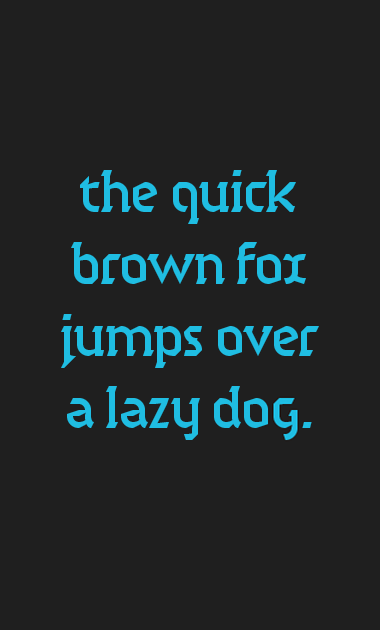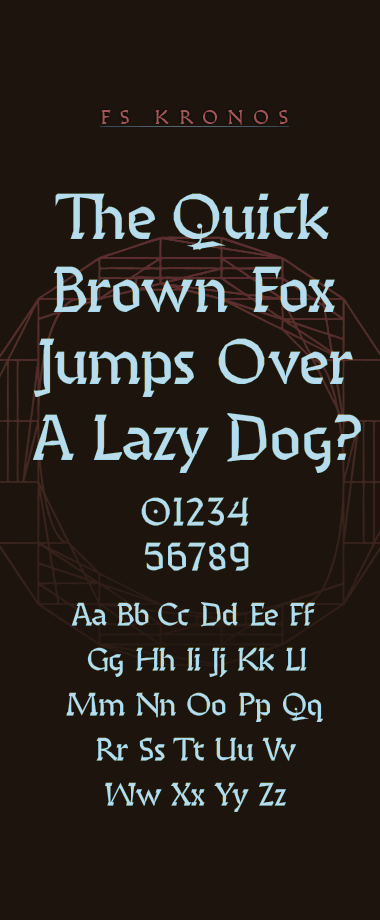
The ultra-low resolution of this grid may be difficult to grasp without cloning. Fontstruct’s logo has a nominal x-height of 3 bricks, by comparison.
The level of detail, control, and finesse possible in a given fonstruction depended mostly on resolution prior to the recent advent of stackable composites. Did you want it better? Make it bigger!
Brute force, now meet Elegance.
Instead of building individual glyphs hundreds of bricks tall, stackable composites allow us to design rich modular schemata hundreds of bricks deep. Using curved bricks at their largest scale, linear and curvilinear elements dynamically harmonize and oppose. As well, screen fonts can be effectively hinted (aside from notable lack of kerning controls) without sacrificing the integrity of joins and intersections. And the trapping possibilities, Oh the sweet sweet trapping possibilities...
At first, I first wanted to respond with a lament about how convincing capitals are just not possible within fontstruct at this scale. Ever the big dreamer and innovator, even I did not consider it likely. Yet, aside from a conspicuous absence of overshoots, the flexibility of fontstruct proved greater still.
The trapping scheme had to be worked out across the lowercase, leaving only z unchanged. The very imperfect, faceted nature of the uppercase invited me to keep adjusting the contrast, stroke weight, and trapping for 17 of them (A B C D G H J K L O P Q S T U W Z) going for cohesion and evenness of color if a no less imperfect upshot.
The brick count for fs Kronos is now 250, though some, inevitably, are simply rotations of other bricks I couldn’t be bothered to track down in an ever burgeoning brick palette. Without taking a purely decorative or grunge approach, I can’t imagine pushing the bricks much further in terms of sheer diversity and raw number of composite solutions. In a common bit of dramatic irony, all the subtle optical variations entailed by these 250 bricks are my attempt to make what is essentially a modular creation (read: repeating elements) a more consistent design! I wonder what Em42 thinks of this, but I think I know. ;)